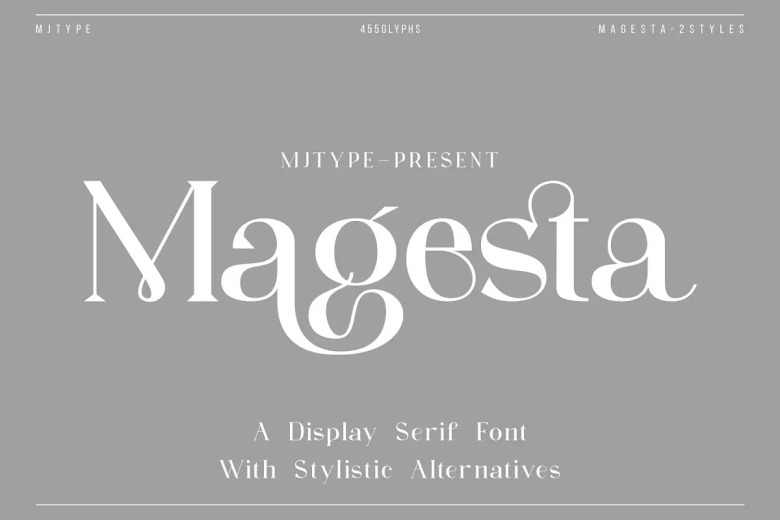
Magesta Font
Magesta is a majestic all-caps font that was inspired by Chopper, a typeface released on August 9th, 2021. The Magesta font has the support of multi-languages Unique upper and lower case bindings of flowing cursive style text.
This river valley is a broad, shaded, well-like Mia Eastland design font can be used in a variety of ways, even those that are impossible to explain.